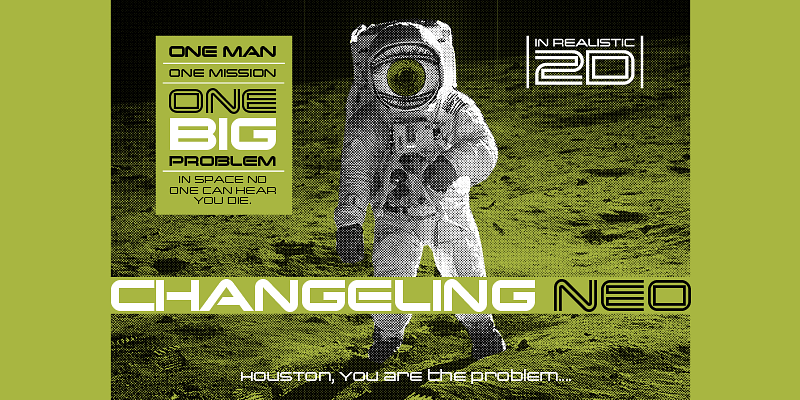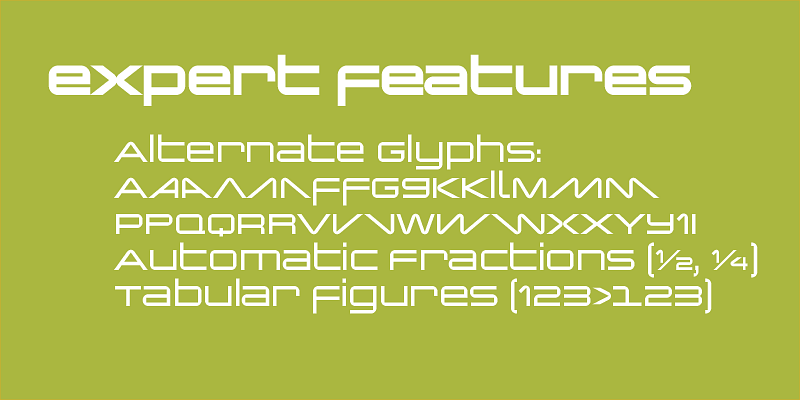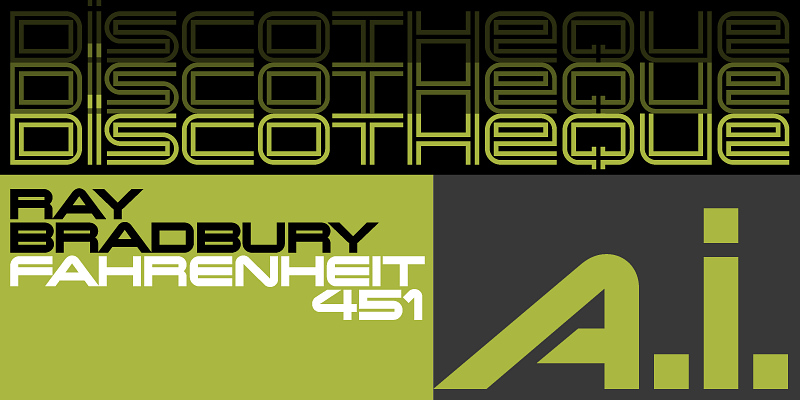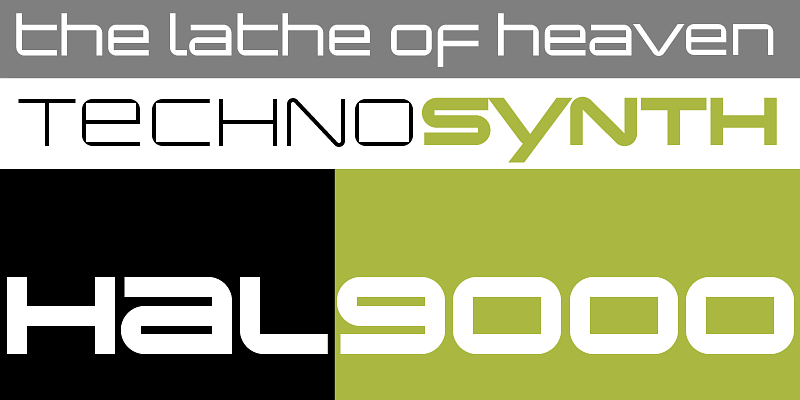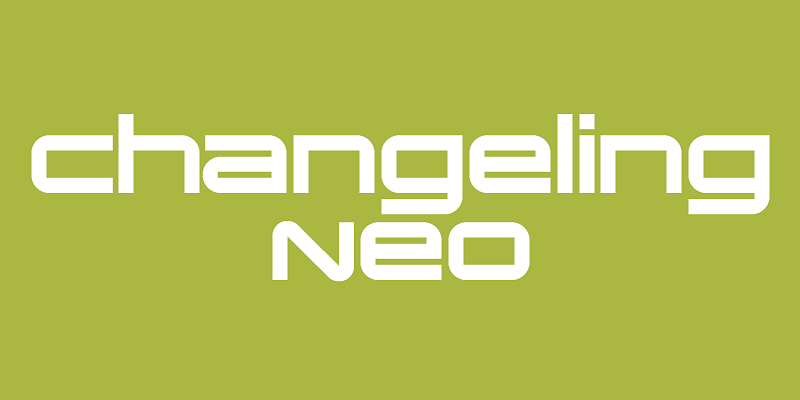
Changeling Neo Font
The Changeling Neo Font is perfect for futuristic tech branding, cyberpunk gaming graphics, sci-fi movie titles, innovative app interfaces, transformative digital campaigns, cutting-edge technology logos, virtual reality experiences, artificial intelligence communications, next-generation product designs, and revolutionary tech presentations.
What makes the Changeling Neo Font so exciting is its revolutionary ability to embody transformation and technological evolution with neo-futuristic design elements that create an unmistakable vision of the digital future. This dynamic typeface features adaptive letterforms, transformative character construction, and neo-tech design principles that perfectly capture the essence of technological metamorphosis and digital evolution. The font's changeling personality and neo-futuristic sophistication make it an exceptional choice for tech companies, digital innovators, and forward-thinking brands seeking to communicate transformation, evolution, and authentic technological advancement with cutting-edge visual impact.
The Changeling Neo Font family includes transformative variations and neo-tech alternates, featuring multiple evolutionary stages, adaptive character options, and futuristic styling elements. Each variation maintains the signature changeling appeal while offering different levels of technological transformation and neo-futuristic expression, giving designers extensive creative possibilities for crafting evolutionary communications and transformative brand personalities that embody the spirit of digital metamorphosis.
This exceptional Changeling Neo Font Free Download represents the ultimate transformative typography solution for innovators who need authentic neo-futuristic aesthetics that resonate with tech-savvy audiences and digital transformation communities. Whether you're developing cutting-edge technology brands, creating futuristic gaming content, or designing revolutionary digital experiences, this versatile neo-tech font delivers compelling results that connect with audiences seeking genuine technological evolution and digital transformation.
The adaptive design characteristics of Changeling Neo Font showcase masterful neo-futuristic typography engineering, with each letter featuring transformative construction elements and evolutionary design details that enhance its technological credibility and futuristic authenticity. The font's comprehensive character set includes uppercase and lowercase letters, numerals, tech-focused punctuation, and neo-futuristic symbols, ensuring complete functionality for diverse technology projects and international digital applications.
Specifically engineered for both digital and print neo-tech applications, this remarkable font maintains its changeling character and transformative integrity across all sizes and formats. From large-scale tech installations to detailed digital interfaces, Changeling Neo Font performs exceptionally while preserving its distinctive evolutionary personality and authentic neo-futuristic appeal.